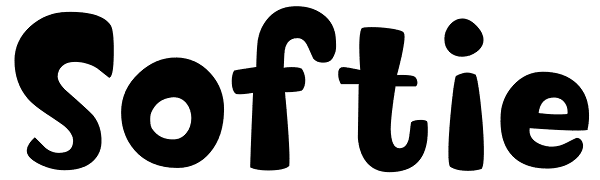
Softie
This typeface was designed to be used as the page heading font for MyFonts. Originally only the letters needed to make up the required phrases were drawn. Then amazingly enough, people started asking where they could get the font, so I decided to...
Softie Bloated